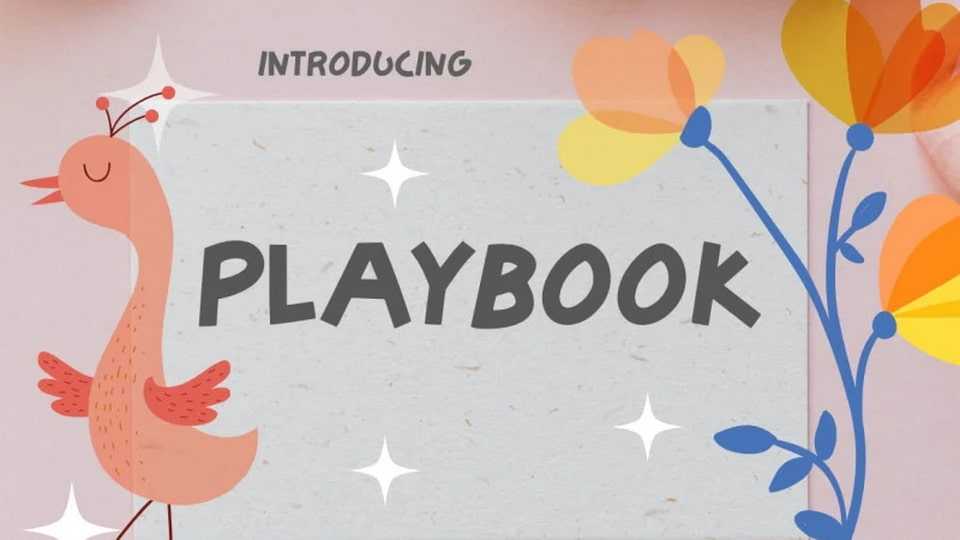
Download Playbook font, a playful sans serif typeface, inspired by playful cartoon style typography, perfect for flyers, quotes, posters.
Designer: Typersid Studio